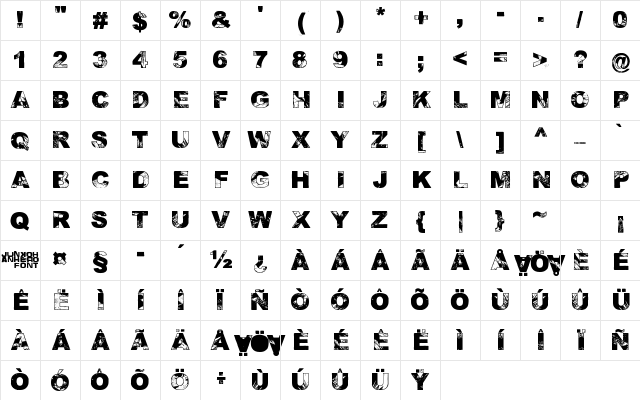
Adieresis, Odieresis & Aring 2 Regular Free Font
Adieresis, Odieresis & Aring 2 Regular
Designer: junkohanhero
Complete Adieresis, Odieresis & Aring 2 Regular glyph index. Displaying only characters natively supported by Adieresis, Odieresis & Aring 2 Regular font.
Design Context for Adieresis, Odieresis & Aring 2
Adieresis, Odieresis & Aring 2 is a composed and adaptable typeface that performs quietly and consistently across a wide range of design contexts.